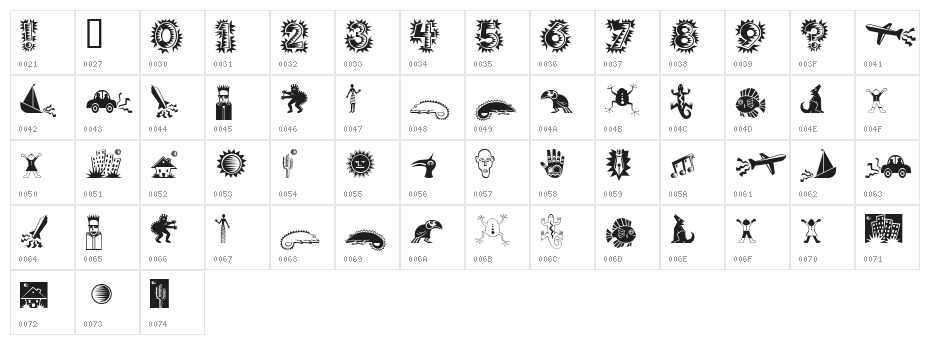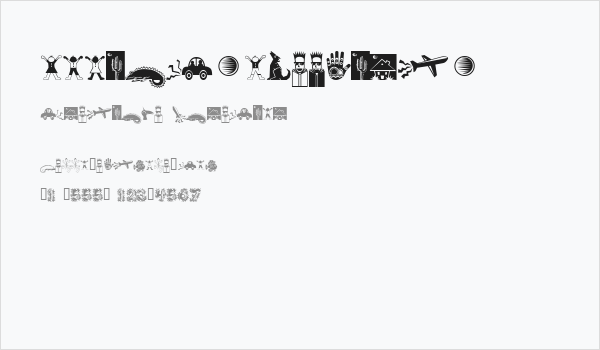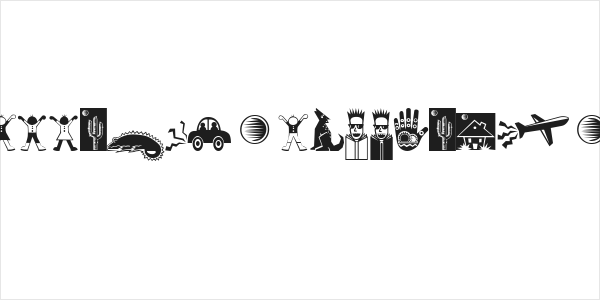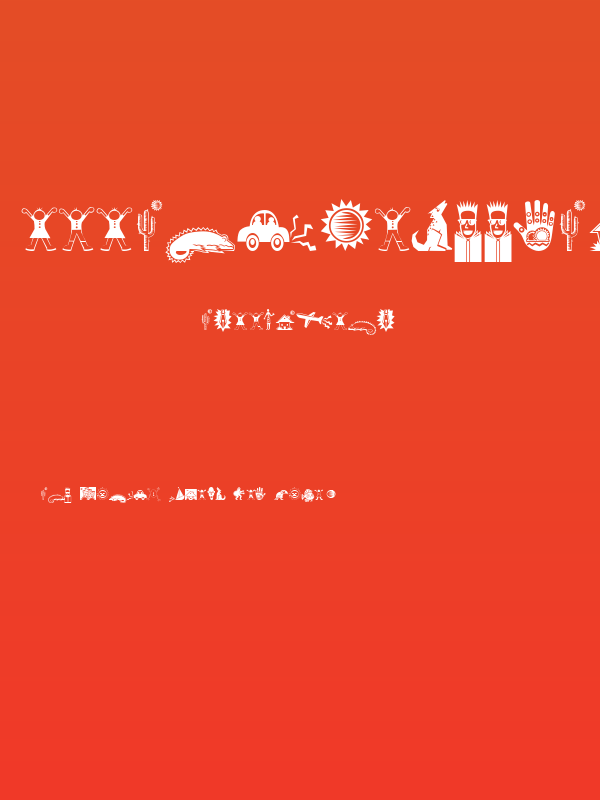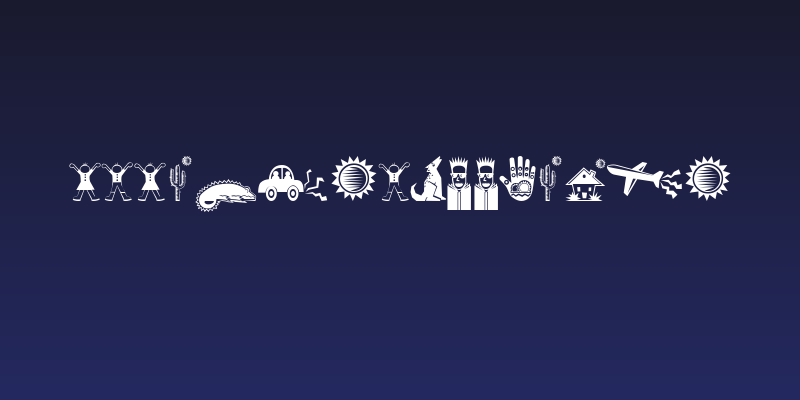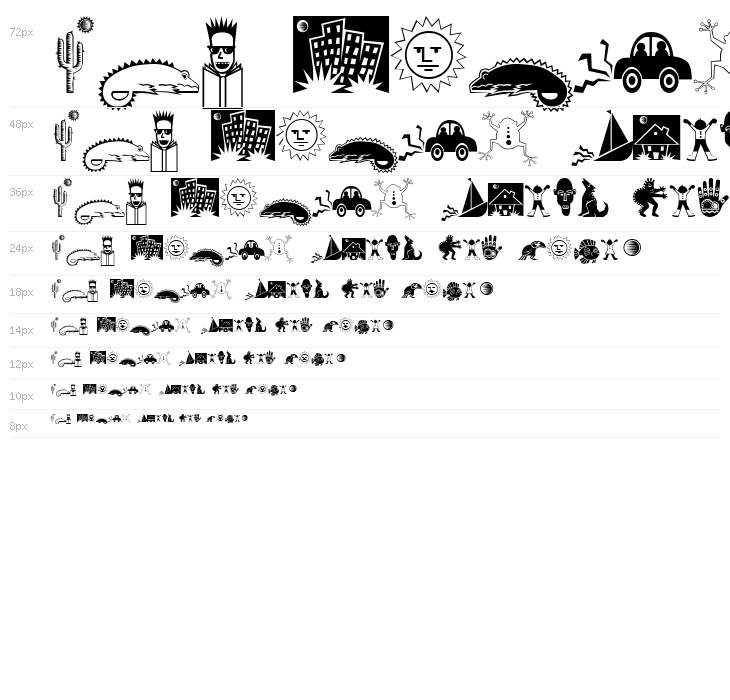
PopticsOneExtras Font
PopticsOneExtras Description
This font is a highly decorative and playful collection of pictograms and symbols. It features a variety of whimsical and abstract shapes, including animals, vehicles, and other imaginative designs. The numbers are styled with a bold, spiky outline that adds a dynamic and energetic feel. The symbols are diverse, ranging from musical notes to expressive faces, each with a unique artistic flair. This font is perfect for creative projects that require a fun and unconventional visual element. Its bold and eye-catching style makes it suitable for attention-grabbing designs.
| Overall Style | Playful and Artistic |
| Use Case | Logos, Posters, Creative Projects |
| Proposed Projects | Ideal for children's books, creative posters, and playful branding materials. |